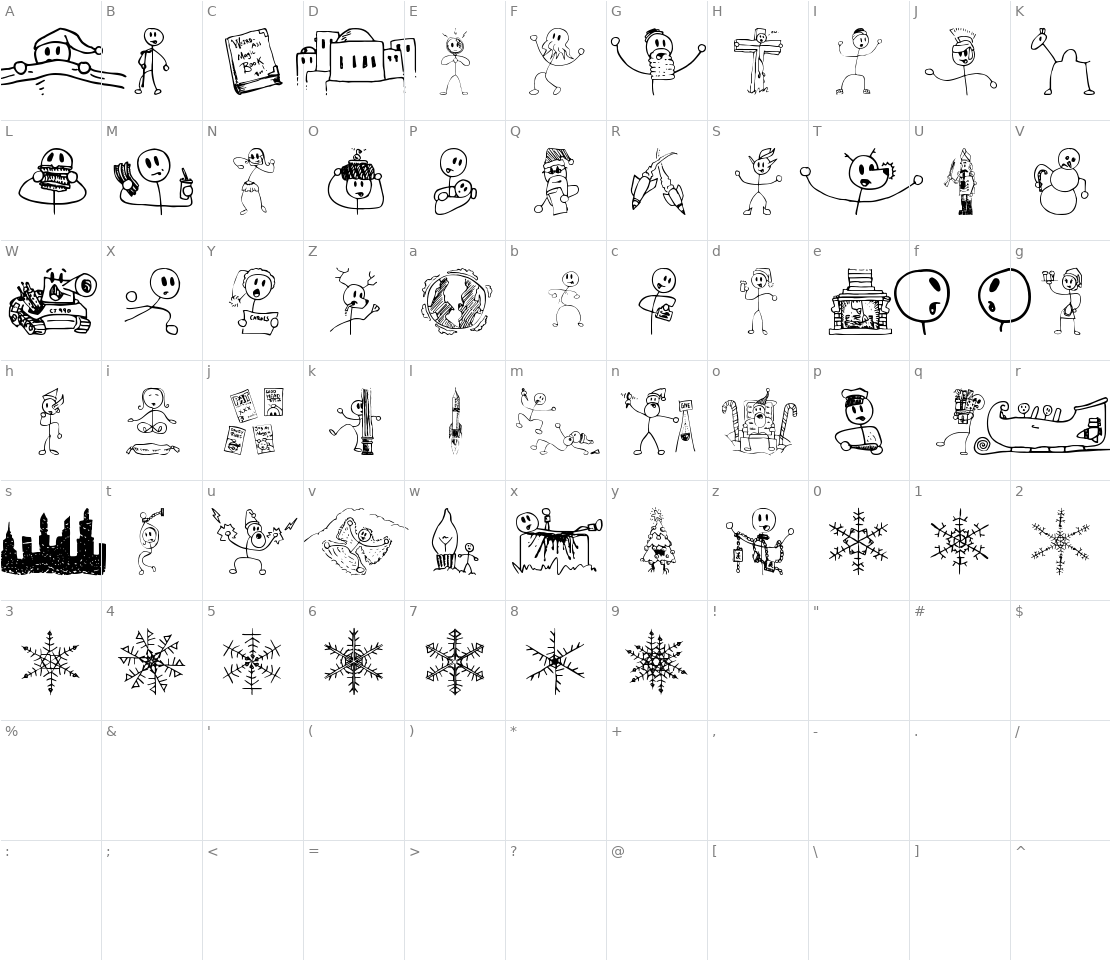
Risus LCB Kringlebats
Risus LCB Kringlebats is a hand-drawn dingbat set from Cumberland Fontworks filled with sketchy, cartoonish Christmas icons. The illustrations have a loose, whimsical quality that feels genuinely hand-sketched rather than digitally polished, giving them warmth and personality. Useful for holiday cards, seasonal layouts, and festive decorations where you want charming little spot illustrations without reaching for clip art.